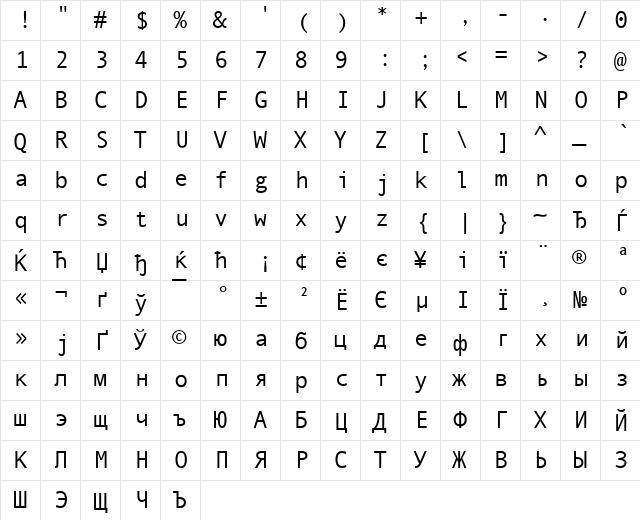
Andale Mono KOI8 Regular
Regular ·  Steven R. Matteson ·
DesignerSteven R. Matteson
Design Context for Andale Mono KOI8 Typeface
Andale Mono KOI8 brings the precise, column-aligned rhythm of monospaced typography to designs that value technical clarity and systematic order.
Well-suited to data-driven dashboards, coding tutorials, and any design that wants to reference the world of programming.
Pro Tip: Use Andale Mono KOI8 with slightly increased line-height for extended reading — fixed-width spacing can feel dense in longer passages without extra breathing room.